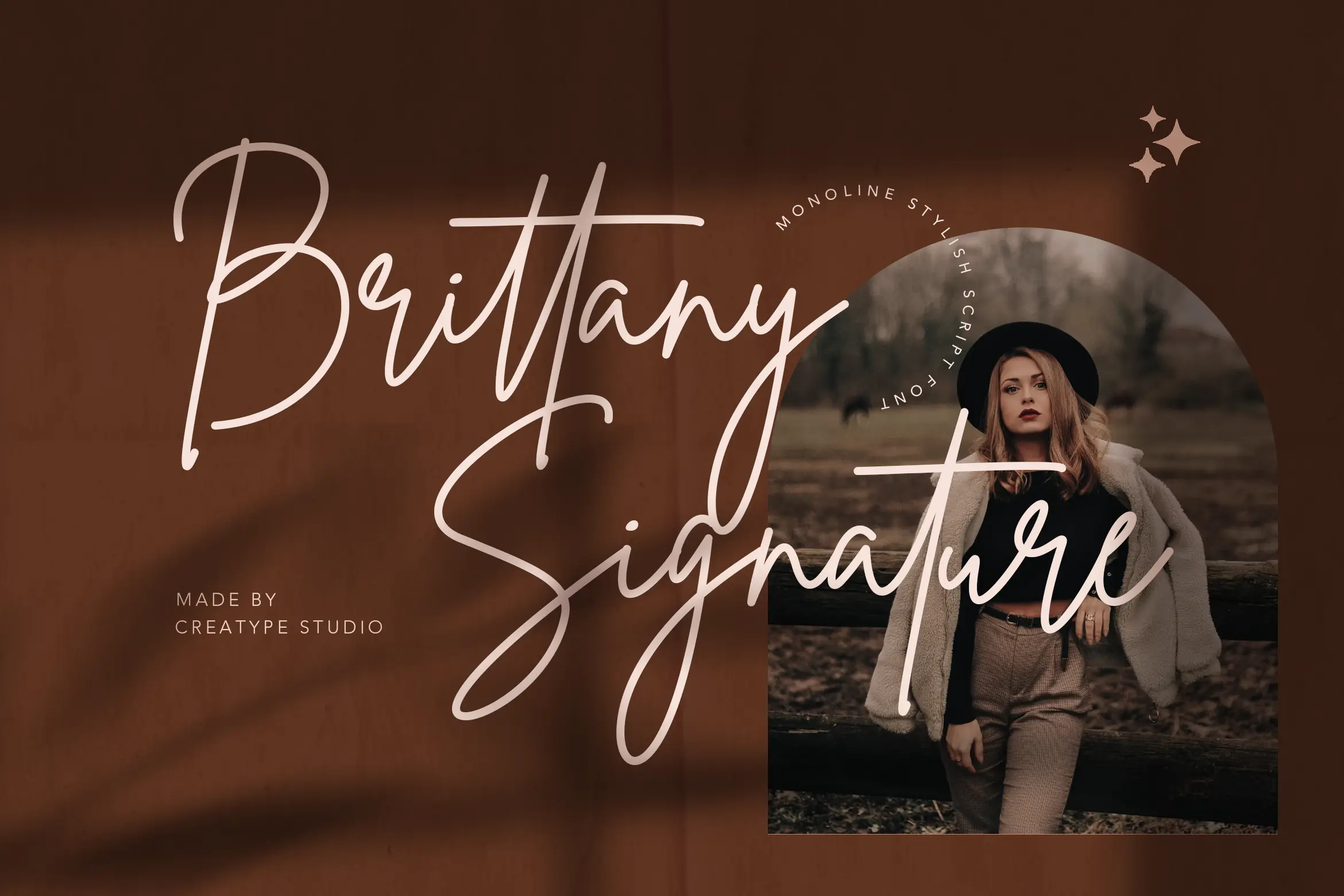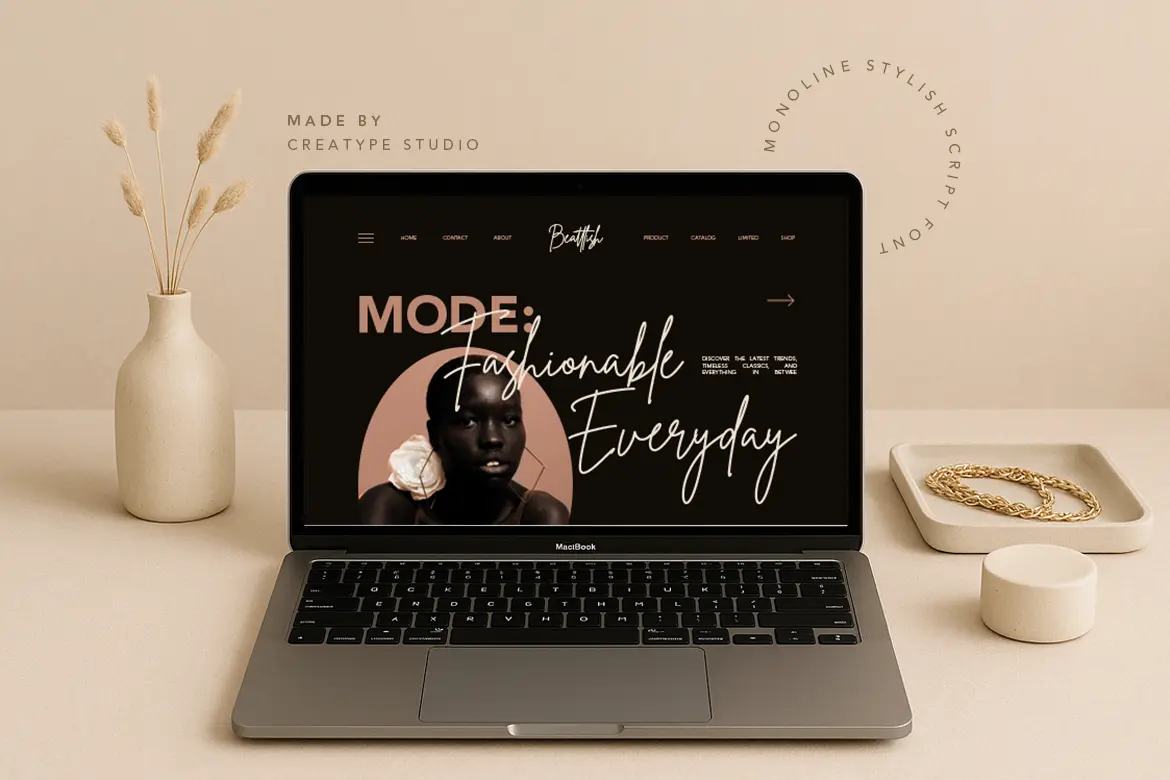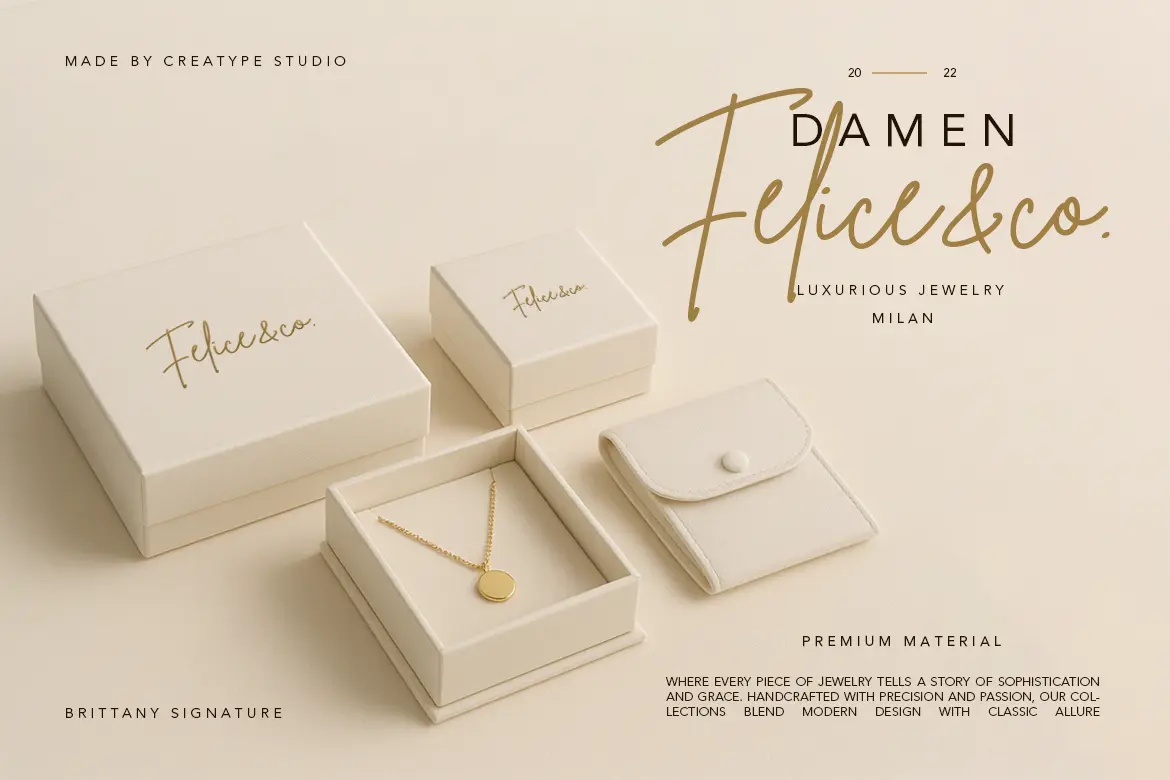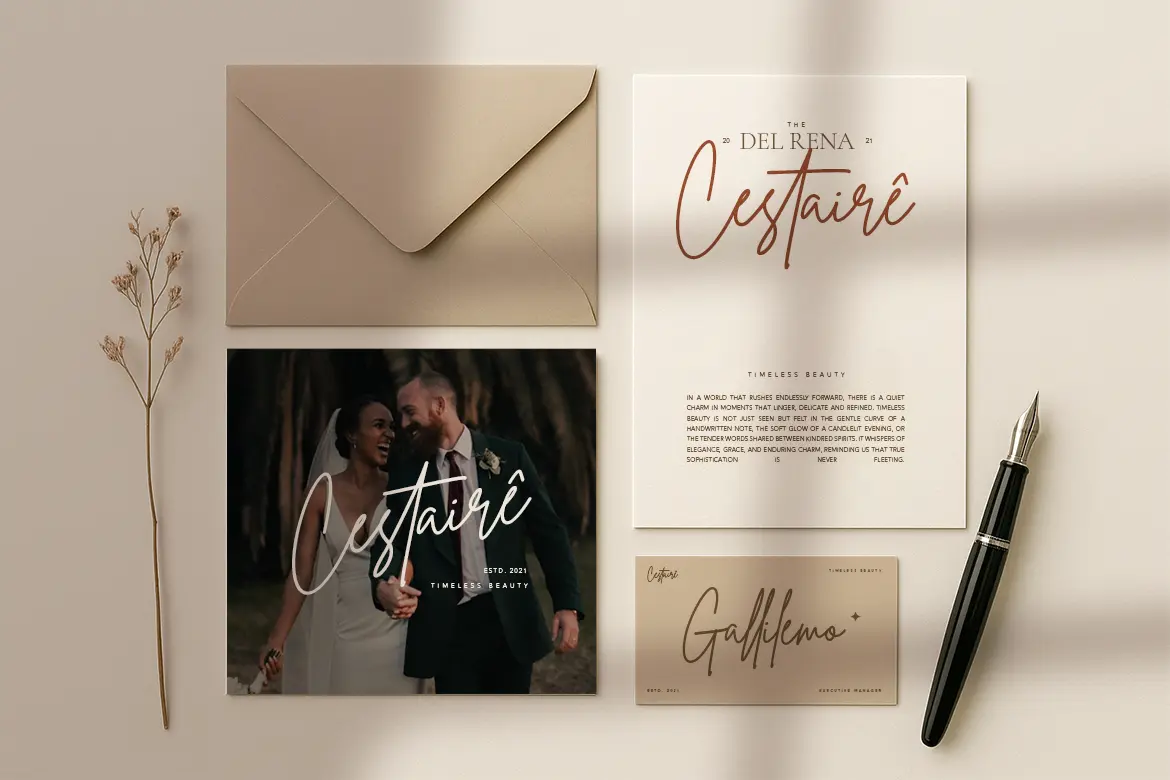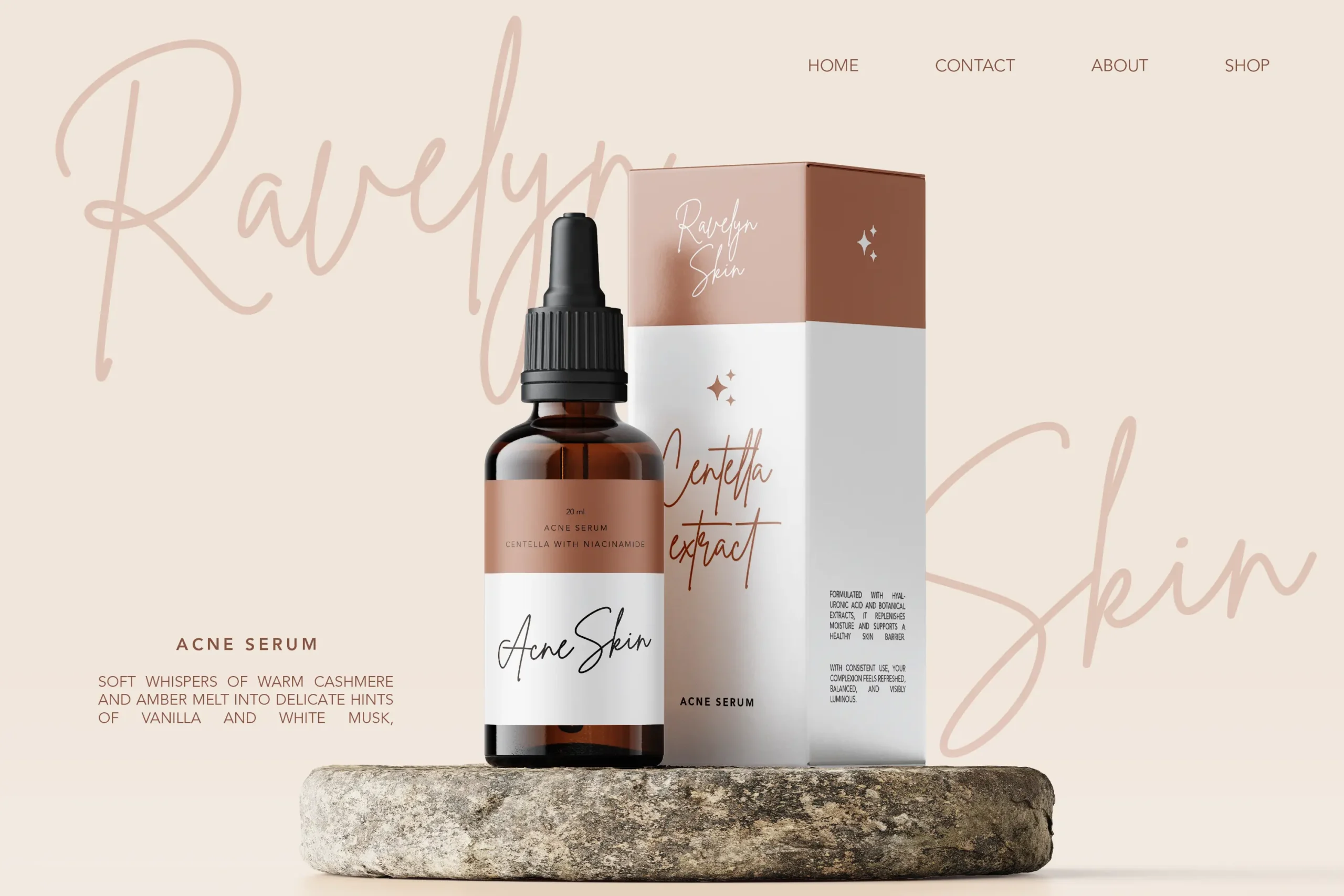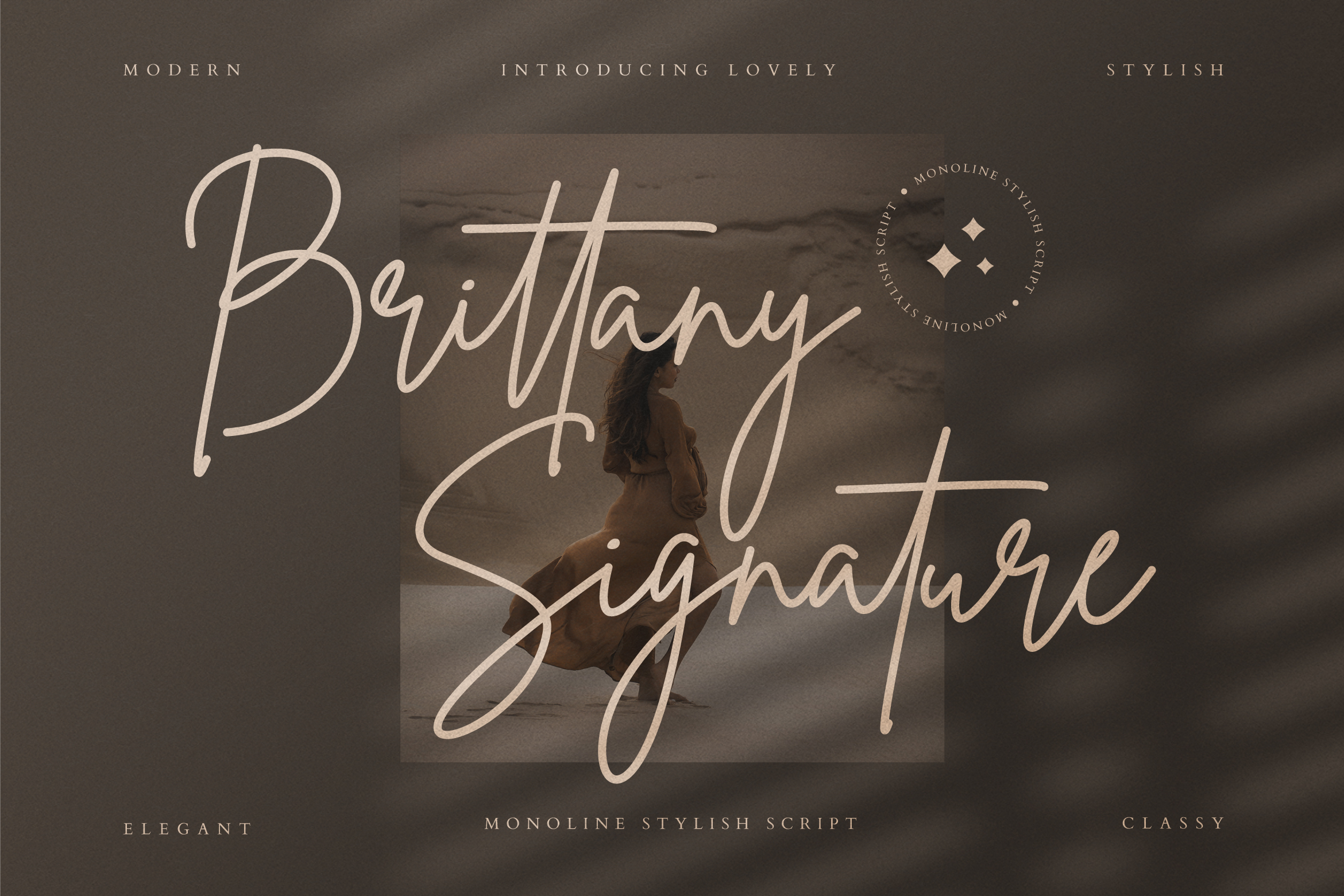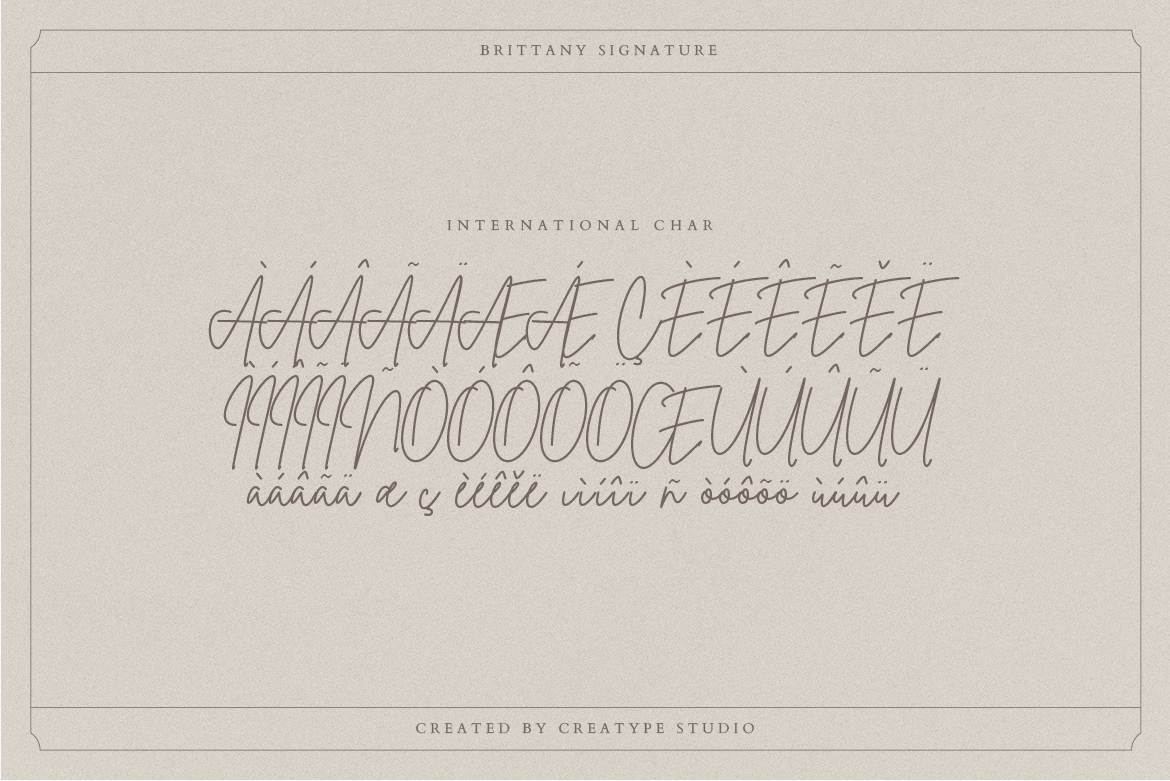
Brittany Signature Font: A Recipe for Spellbinding Designs!
The typography of the handwritten font style gives that feeling of exclusivity and congeniality, making the visual designs feel approachable. One of the most-try of these font styles is Brittany signature font. Find out why this font should be added to your to-utilize fonts in this article!
Font Brittany and How Does It Look Like
Brittany Signature Font
Like many other signature types of handwritten font style, Brittany looks like a person’s personal handwriting. The lines, curves, strokes, thickness, and contrast diverge for the upper and lower case. While it only has a single style, the components mentioned make this handwritten style feel more personal and appealing.
Brittany Signature Font
Moreover, the designer made it available for diverse types of glyphs. But this stylish font also supports multiple languages such as Swedish, Spanish, Scottish, Portuguese, Norwegian, Italian, Irish, Indonesian, German, French, Dutch, and Danish to Afrikaans.
Brittany Signature Font
Use of The Font Brittany As Spellbinding Branding Elements
The personalized style of handwritten font like Brittany is identical and perfect for personal work like name cards or watermarks. However, this font can be an appealing weapon as a visual element for other media and purposes. Here are some ideas on integrating this font into your design projects.
1. Photography or Magazine Cover
The slanted lines of Brittany will not only beautify a photograph, but it can create strong readability if applied to the magazine cover. If you want to capture attention through a sparkling yet nostalgic ambiance, you can use it as the title or headline and combine it with sans-serif font style as body text or sub-heading.
Brittany Signature Font Brittany Signature font
2. Landing Pages
A concise and easy-to-digest message on the landing page is the key to getting a conversion for a marketing campaign. Yet, a striking, smooth, yet clear font can also affect the message’s visibility.
In the image below, you’ll see that a combination of a simple image, script font style, and Brittany signature font as a pair enhanced the key promotion word that triggers a Call to Action (CTA) to visitors.
Brittany Signature for Landing Page
3. Product Packaging or Hangtag
Need a supple and neat product package or hangtag design? Using earth-toned color, less decorative elements, and putting them together with font Brittany in a sleek layout like the following example will do!
Brittany is not only a pair with feminine products or projects but can also relate to masculinity if needed. Find out what it will look like in the example below.
Brittany Signature Font
4. Wedding Designs and Invitations
A wedding is a personal project where personnel and human touch become subconsciously mandatory. Whether you want to utilize the font in the wedding invitation wording, souvenirs, or other wedding-related products, Brittany can suit it perfectly.
You can apply it to mark the date, highlight the bride and groom’s names, or make the announcement look louder.
Brittany Signature Font
5. Social Media Post
To create captivating social media posts, aside from using interesting and speaking images, you should use readable fonts to deliver the text message. While Brittany has ligatures and can be curvy occasionally, the linings between each alphabet are properly measured to make them legible.
You may also try to bring contrast while combining this font with another type of font style to enhance the text’s readability. How? For example, color gradation or even putting different yet harmonious colors to the text. This strategy will help you maintain the letter formation for readability, as in the following example.
Brittany Signature Font
What Else Can Brittany Signature Font Do For Your Visual Designs?
As explained above, this handwritten font has the characteristics of a human hand signature. Yet, it is sleek with firm and proper lining and strokes, making it legible and compatible with numerous designs on different media, including online platforms.